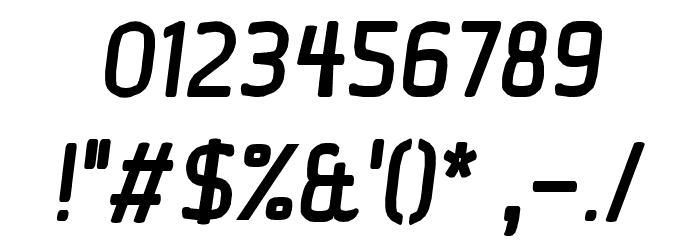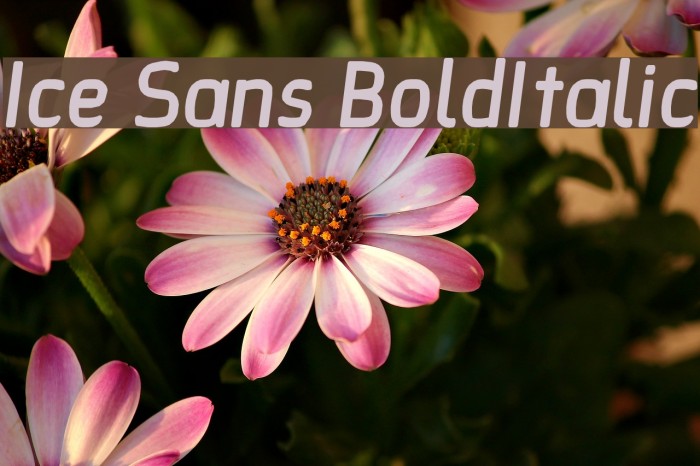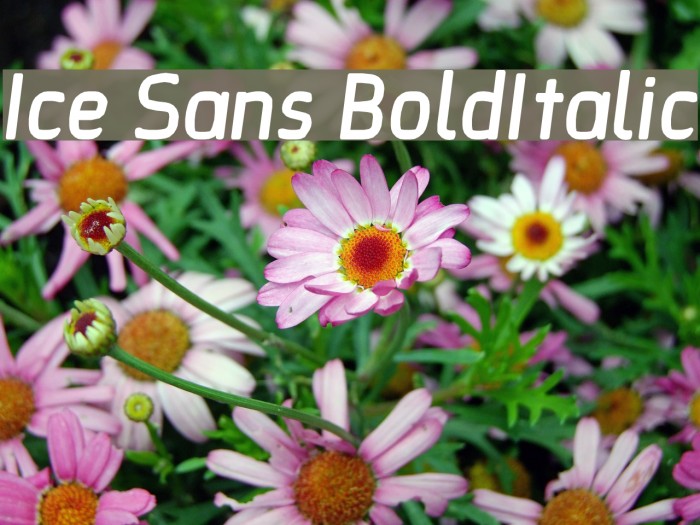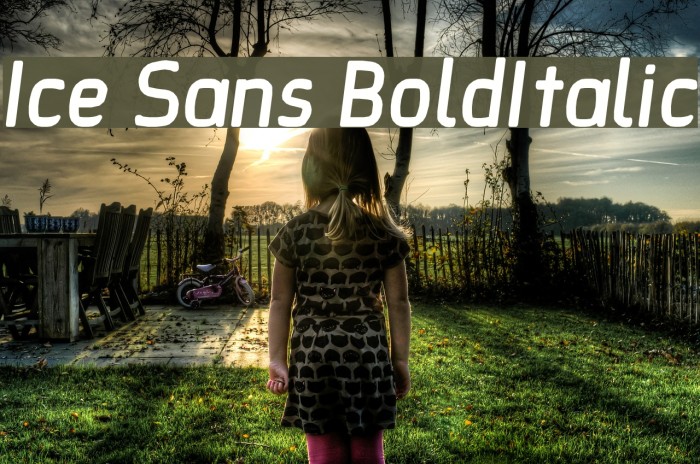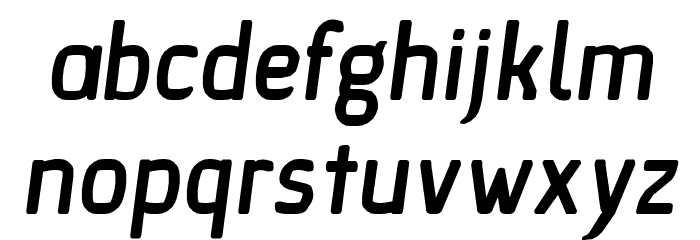
Ice Sans BoldItalic Font
This font features a bold and italicized sans-serif style, characterized by clean and smooth lines with a slight slant to the right. The uppercase and lowercase letters maintain a consistent height and width, providing a uniform appearance. The numbers and special characters are designed to complement the alphabet, ensuring readability and visual harmony. The overall design is modern and sleek, making it suitable for various digital and print applications. Its bold weight and italic style add a dynamic and energetic feel, perfect for catching attention.
A bold, italicized sans-serif font with a modern and sleek design.
• Proposed Projects: Ideal for branding, advertising, headlines, and digital media where a modern and dynamic look is desired.
• Category: Sans-Serif
• Bold: Yes
• Italic: Yes
• Weight: Bold
• Width: Normal
• Character Spacing: Normal
• Contrast: Low
• Overall Style: Modern
• Use Case: Headlines, Logos, Digital Media